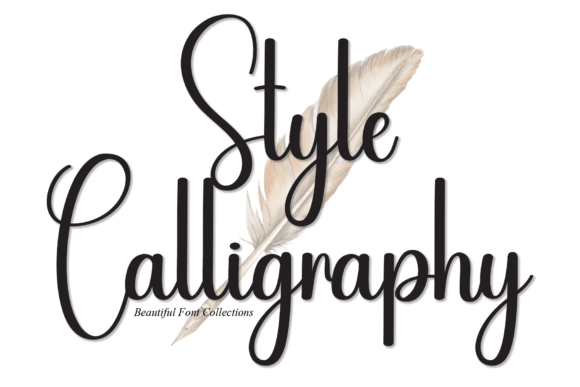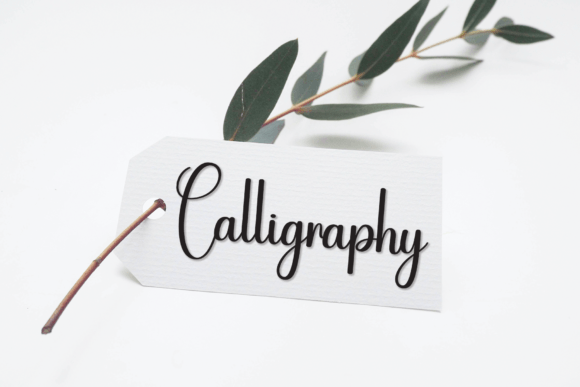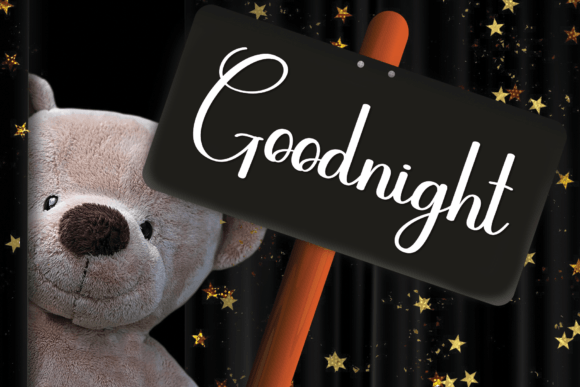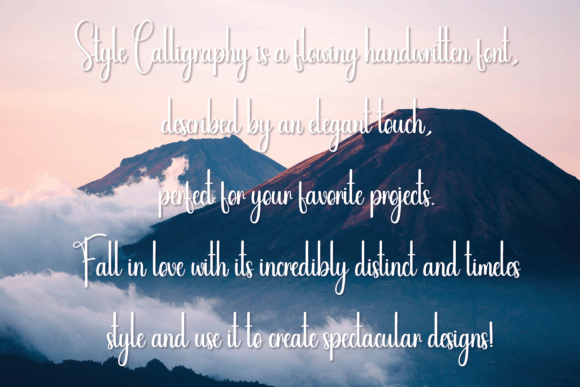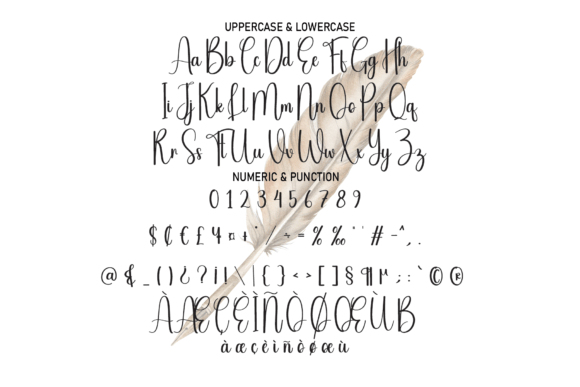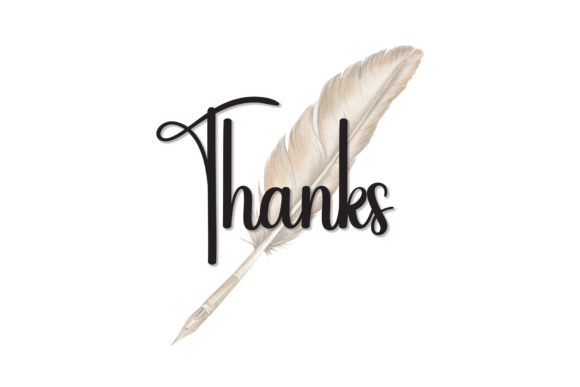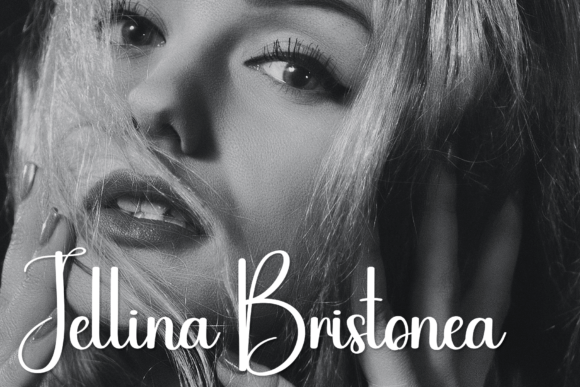
Style Calligraphy Font
An Enchanting Handwritten Script Typeface
Style Calligraphy is a beautiful handwritten font created to bring elegance and warmth to your designs. With smooth, flowing strokes and balanced letters, this font feels classic yet modern. Whether you’re designing invitations, greeting cards, or headlines, Style Calligraphy adds a romantic, refined touch that makes your work feel special.
Its versatile style adapts easily to both personal and professional projects.
Style Calligraphy is a font you’ll want to use over and over again. It’s perfect for wedding invitations, save-the-date cards, and thank you notes. The graceful script sets a heartfelt tone that’s ideal for life’s most memorable moments.
For branding, this font shines on logos, product labels, and business cards. The handwritten feel gives your brand a premium, authentic look that customers trust.
It also works beautifully for social media graphics, blog headers, and website banners. The elegant letterforms make your content stand out in any feed while staying easy to read.
In creative projects, Style Calligraphy elevates quotes, posters, and custom gifts. Its romantic style makes every message feel warm and thoughtful.
Even with its delicate curves, Style Calligraphy remains clear and legible in any size. Balanced spacing and smooth connections help your text look neat whether you’re using it in large headlines or small captions.
For a clean, modern layout, pair this font with a simple sans-serif typeface. Use Style Calligraphy for titles and highlighted words, and the sans-serif for supporting text. This combination creates a professional look while showcasing the script’s beauty.
To make Style Calligraphy shine, use soft backgrounds and neutral colors. Shades like blush, cream, and pale gray let the script stand out without overwhelming your design.
When designing invitations or packaging, consider adding subtle floral elements or delicate borders to complement the handwritten feel.
On social media, embrace white space to keep your posts clean and your text the focal point.
Think about the mood you want to share. Style Calligraphy is perfect for designs that should feel romantic, elegant, and timeless.
Style Calligraphy isn’t just another script font—it’s a creative asset that makes every project feel unique and sophisticated. From professional branding to personal keepsakes, this font adapts effortlessly to any purpose and adds a polished finish to your work.
Adding Style Calligraphy to your font collection means you’ll always have a versatile, beautiful option ready for any design. Whether you’re creating logos, invitations, or social media content, this font helps every idea feel memorable and special.